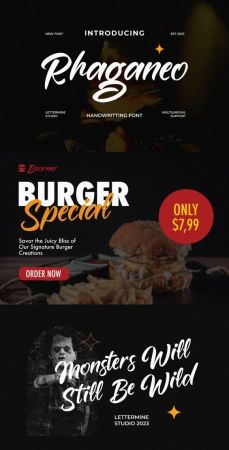
CM - Rhaganeo - Elegant Handwritten Font 42263116
Rheganeo is a charming script font imbued with elegance and grace. Its fluid strokes and delicate curves evoke a sense of sophistication and romance. Perfect for invitations, branding, and elegant designs, Rhaganeo adds a touch of refinement and charm to any project, captivating audiences with its timeless allure.